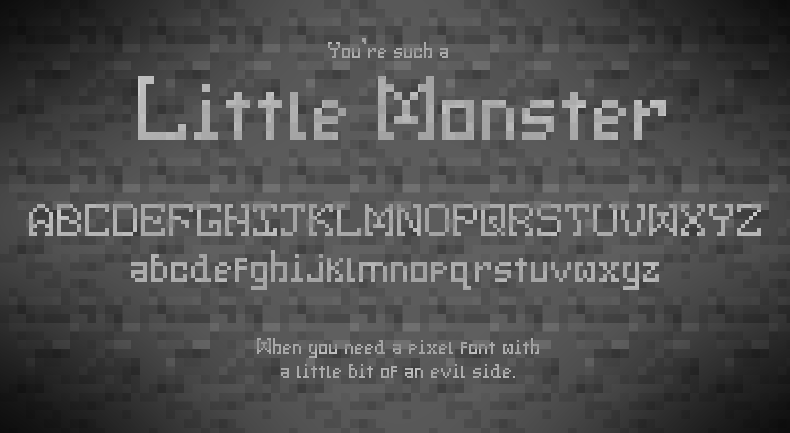
Font name: | Little Monster |
Author: | Jack Oatley |
Note by Jack Oatley | |
This font "Little Monster" is created by Jack Oatley. AKA "Bitty" on http://www.dafont.com/profile.php?user=764521 This is a pixel font that is designed to look evil, yet in a cuddly way. I originally created it for a pixel art Dungeon Keeper inspired game, which was never finished. It is 100% free to use, though credit is appreciated and it'd be cool to know where you used it. You must not claim it as your own. |